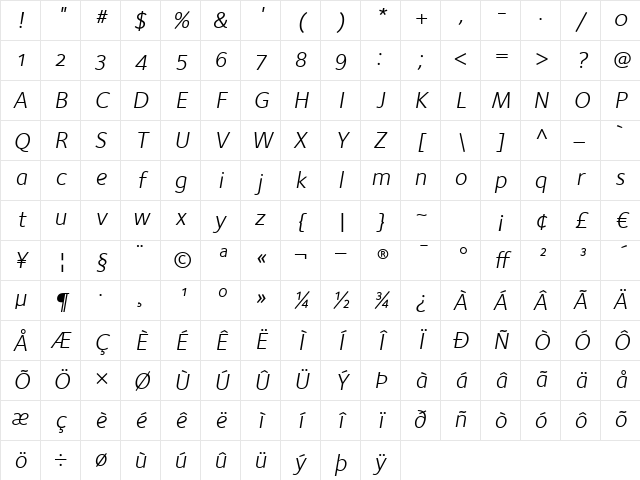
FoundrySterling-BookItalicOSF Regular
Designer: The Foundry
Design Context for FoundrySterling-BookItalicOSF
FoundrySterling-BookItalicOSF is a composed and adaptable typeface that performs quietly and consistently across a wide range of design contexts. The slanted form adds forward momentum and visual energy.